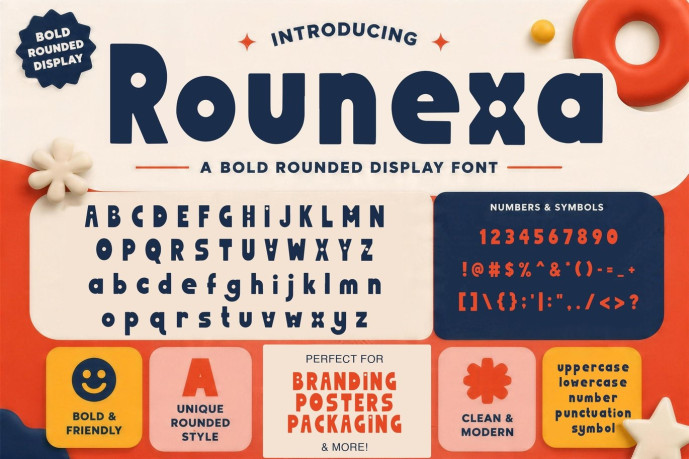
Rounexa – Bold Rounded Display Font
Rounexa is a bold rounded display font designed to bring a playful, modern, and confident personality to your creative projects. Featuring thick letterforms, smooth rounded corners, and unique geometric details, Rounexa delivers a friendly yet eye-catching appearance that stands out across both digital and print designs.
Its clean, bold structure makes it ideal for headlines, logos, branding, packaging, posters, social media graphics, children’s products, food branding, merchandise, and any design that needs a fun and memorable visual identity.
Whether you’re creating a modern brand, playful packaging, trendy advertising, or vibrant promotional materials, Rounexa offers strong readability while maintaining a distinctive and charming style.